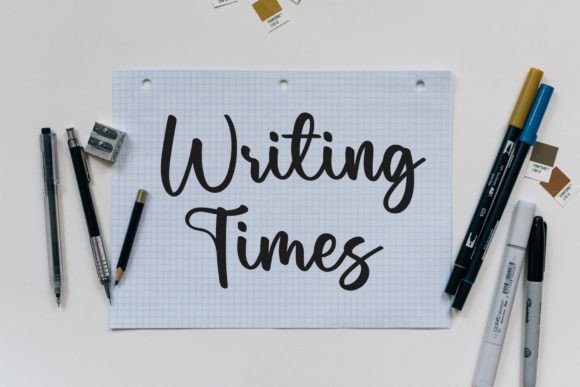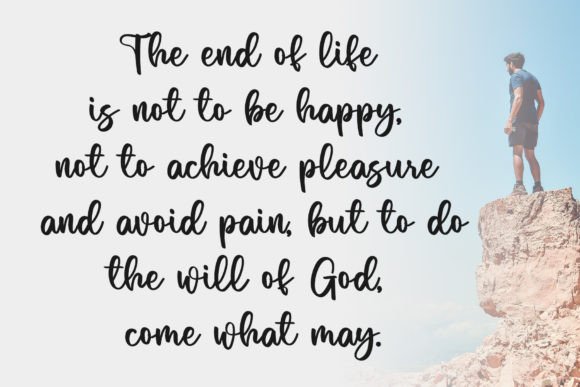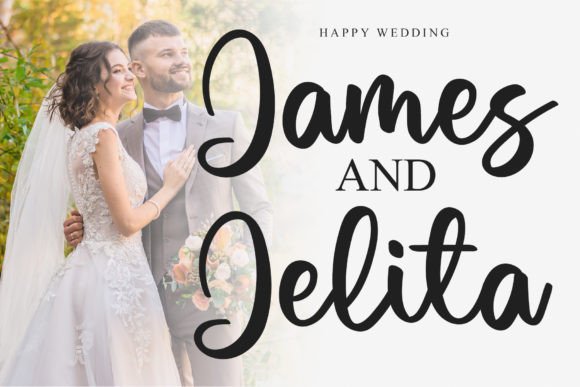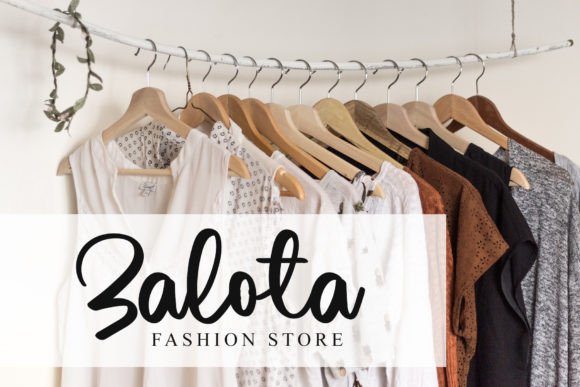
Introduction to Sickle Font
As designers, we’ve all been there – staring at a blank canvas, waiting for that spark of creativity to strike. It’s the moment when our imagination runs wild, and we envision the perfect design that will leave a lasting impression on our audience. For many, this moment is the result of finding the right font – a perfect blend of style and personality that elevates our creative project to the next level.
Enter the Sickle Font, a modern handwritten font that promises to bring a touch of happiness to any design. With its stylish and elegant lines, this font is perfect for a wide range of applications, from greeting cards to branding and packaging. Whether you’re working on a personal project or a commercial design, the Sickle Font is sure to be a valuable addition to your design resource.
With its PUA encoded feature, accessing all the amazing glyphs and ligatures is a breeze, making it a high-quality design resource that’s easy to use and requires no extra effort.
Sickle Font
- High-quality, professional font suitable for creative projects, with a unique design that adds a touch of elegance.
- Perfect for use in various design contexts, from branding and marketing materials to digital products and publications.
Honest Review: Sickle Font
As a designer, I’m always on the lookout for high-quality fonts that can elevate my creative projects. Sickle Font is a font I recently stumbled upon, and I’m excited to share my honest review with you.
- ✨ The font has a unique and modern aesthetic that’s perfect for contemporary design projects.
- ✨ It’s incredibly versatile and can be used for a variety of purposes, from headings to body text.
- ⚠️ The font’s transparency can be inconsistent, which may affect its performance on transparent backgrounds.
- ⚠️ Some users may find the font’s style to be a bit too bold or overpowering, so be sure to use it sparingly.
Overall, I’m impressed with Sickle Font as a design resource. Its high quality and unique style make it a valuable addition to any designer’s toolkit. While it may have some limitations, I believe it’s well worth the free download.
Sickle Font
Tips for Getting the Most Out of Sickle Font
To get the most out of Sickle Font, experiment with different font sizes, styles, and combinations. You can also use it in conjunction with other design elements to create a unique and eye-catching design.
Sickle Font is perfect for a variety of creative projects, including graphic design, digital art, and print materials. You can use it to create eye-catching titles, headings, and body text.